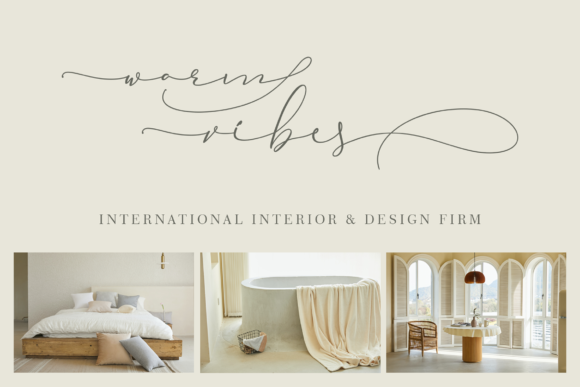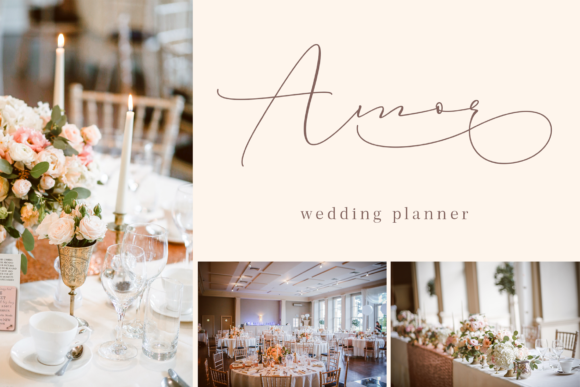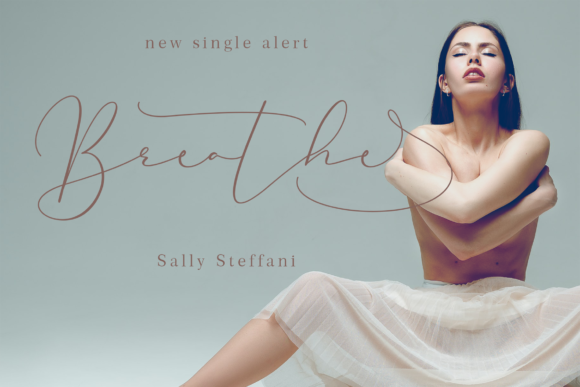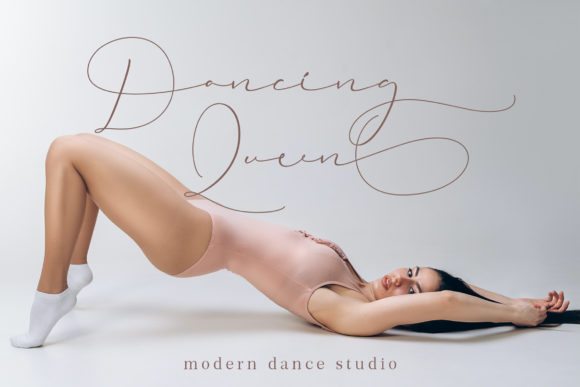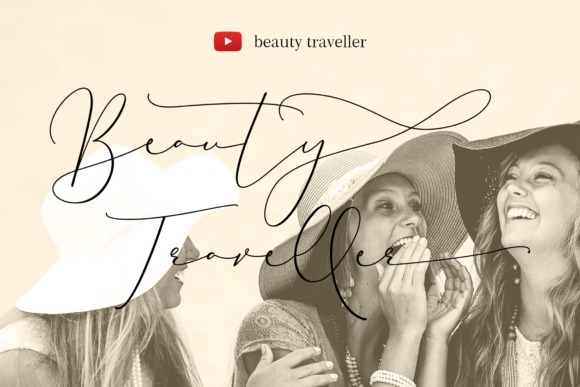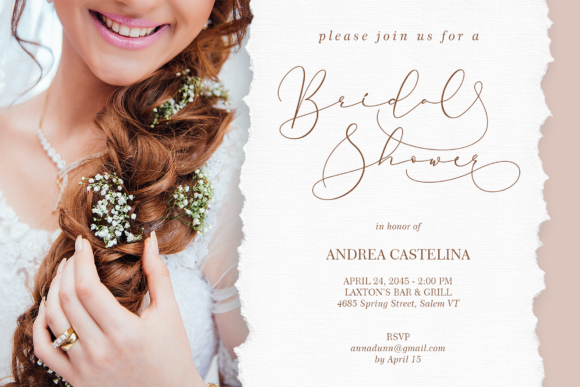
Introduction to Della Loisa Font
You know that feeling when you’re scrolling through social media and you come across a beautiful wedding invitation or a stunning graphic design that catches your eye? The first thing you think is, “Wow, I need to learn how to create something like that!” That’s exactly what happened to me when I stumbled upon the Della Loisa Font. Its thin lettered and graceful script style has been a game-changer for my design projects.
As a designer, I’m always on the lookout for high-quality design resources that can help me bring my creative vision to life. And let me tell you, the Della Loisa Font is a treasure trove of inspiration. With its elegant and sophisticated look, it’s perfect for creating gorgeous wedding invitations, beautiful stationary art, eye-catching social media posts, and much more. And the best part? You can download it for free, making it an invaluable resource for any designer.
Whether you’re working on a creative project or just want to add a touch of elegance to your social media posts, the Della Loisa Font is a must-have in your design arsenal. With its transparent background and high-quality design, it’s sure to elevate your designs to the next level. So, let’s dive in and explore the wonderful world of Della Loisa Font!
Key Features of Della Loisa Font
- High-quality, elegant design ideal for creative projects and design resources.
- Includes a transparent background, allowing for seamless integration into various design elements.
- Designed with precision and care, resulting in a crisp resolution of 300 DPI.
- Features a unique, handwritten style that adds a touch of sophistication to any design project.
- Supports various languages, making it a versatile choice for designers working on international projects.
Honest Review: Della Loisa Font
One of the standout features of Della Loisa Font is its high quality and versatility. It’s perfect for a variety of creative projects, from digital designs to print materials. The font comes with a transparent background, which makes it easy to layer and manipulate in design software.
- High-quality and versatile design
- Transparent background for easy layering and manipulation
- Perfect for digital and print designs
- Some users may find the font too ornate or over-the-top for certain designs
- Limited font sizes and styles available
Overall, I’m pleased with Della Loisa Font. It’s a great resource for designers looking for a high-quality, versatile font for their creative projects. Just be aware of its limitations, and use it judiciously to get the most out of it. ✨
How to Use Della Loisa Font
In Adobe Photoshop or Illustrator, use the Della Loisa Font to add text to your designs. Experiment with different font sizes, colors, and styles to enhance your creative project.
In PowerPoint or Word, use the Della Loisa Font to create engaging presentations or documents. The font’s high-quality design will help your content stand out.
To get the most out of the Della Loisa Font, experiment with different font sizes, colors, and styles. Combine the font with other design elements to create visually appealing compositions.
Alternatives to Della Loisa Font
The Great Vibes Font is a beautiful, elegant script font perfect for creative projects that require a touch of sophistication. It’s ideal for wedding invitations, menus, and other high-end designs. Great Vibes Font is available for free download and features a transparent background, making it easy to overlay on any design element.
Compared to Della Loisa Font, Great Vibes Font has a more refined and luxurious feel, making it suitable for high-end designs. It’s also highly customizable, allowing designers to adjust the font’s size, color, and style to fit their creative project.
The Alex Brush Font is a stunning script font that adds a touch of elegance to any design. It’s perfect for creative projects that require a sense of sophistication and refinement. Alex Brush Font features a transparent background and is available for free download, making it an excellent design resource for designers.